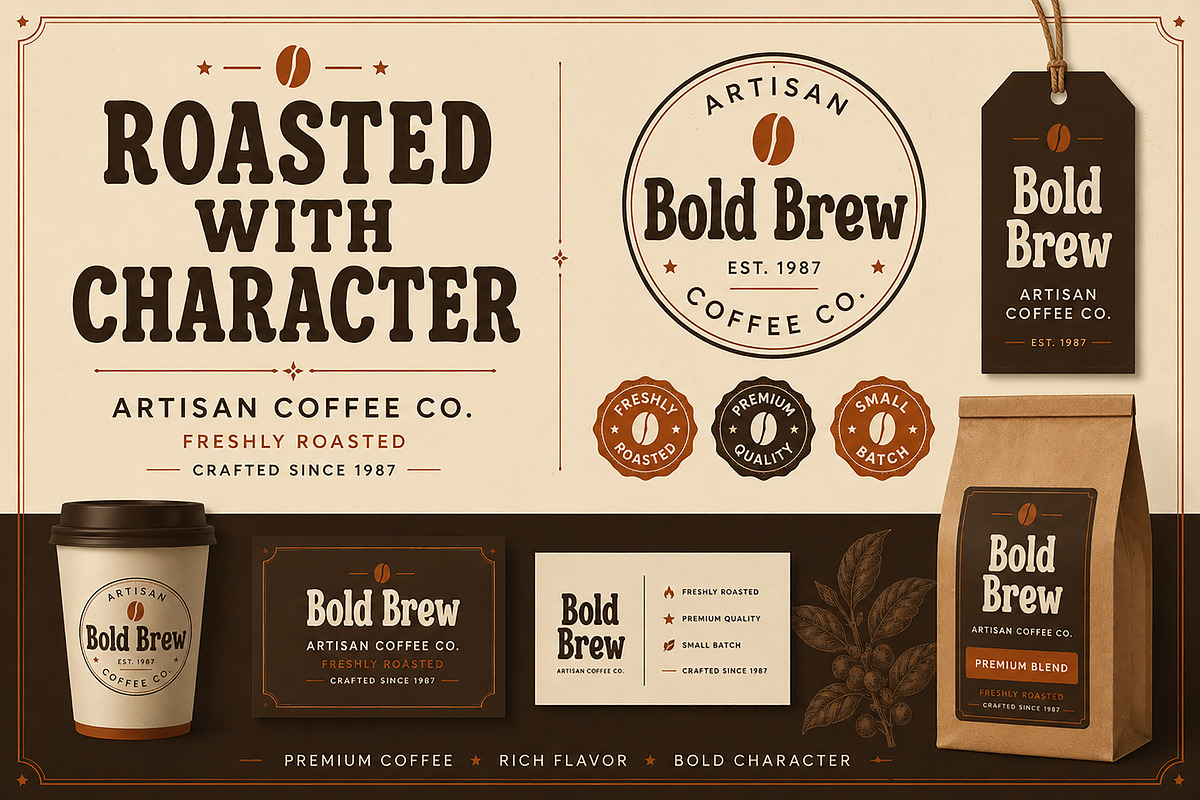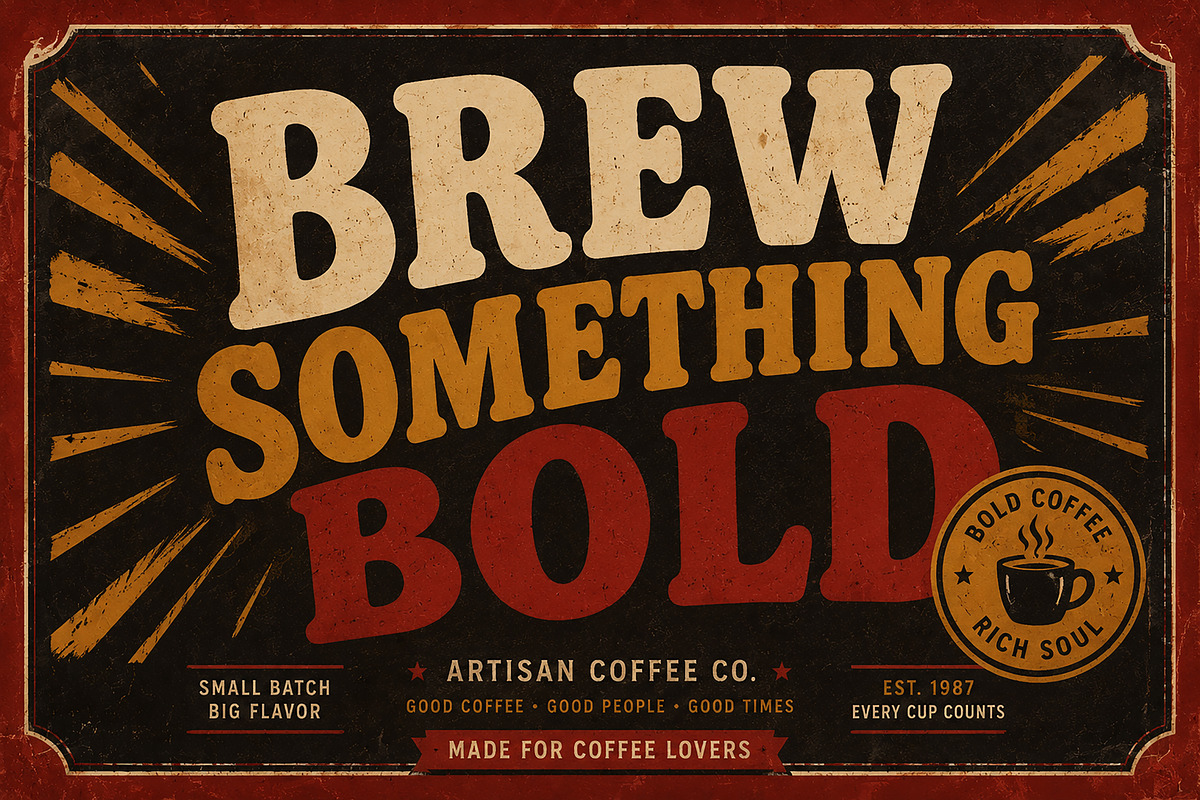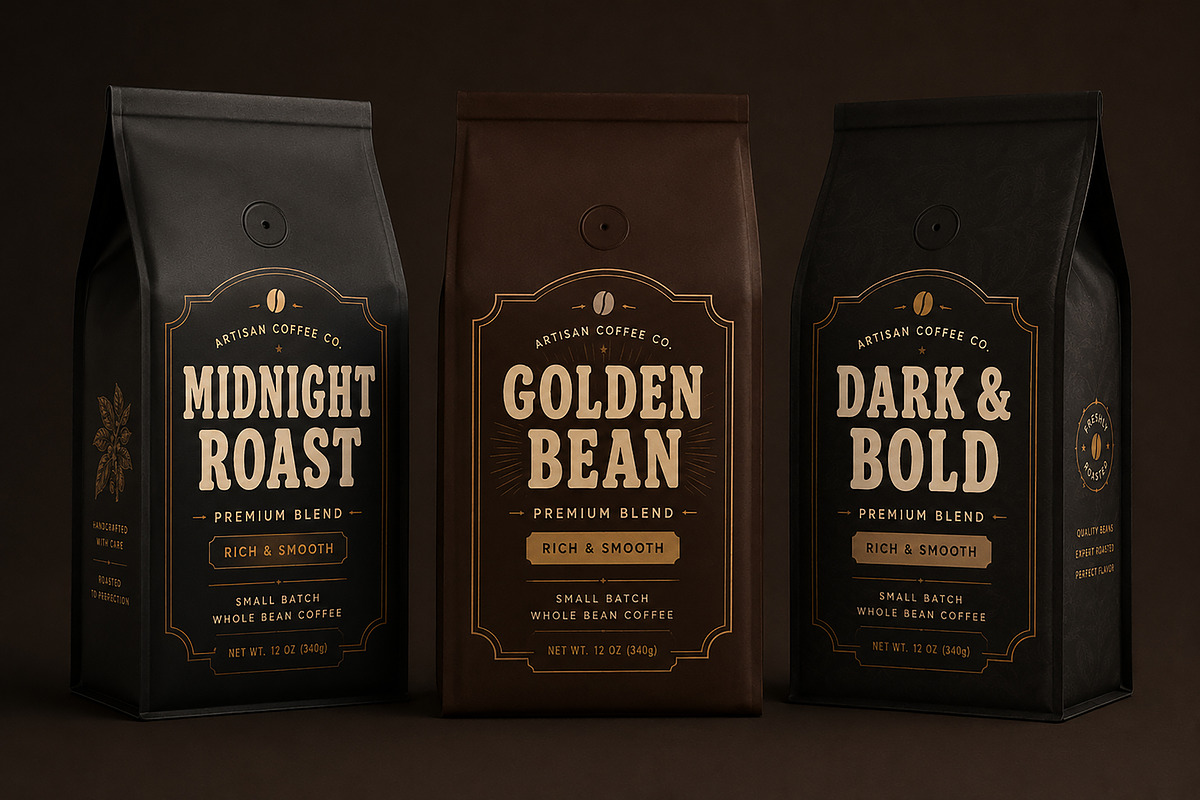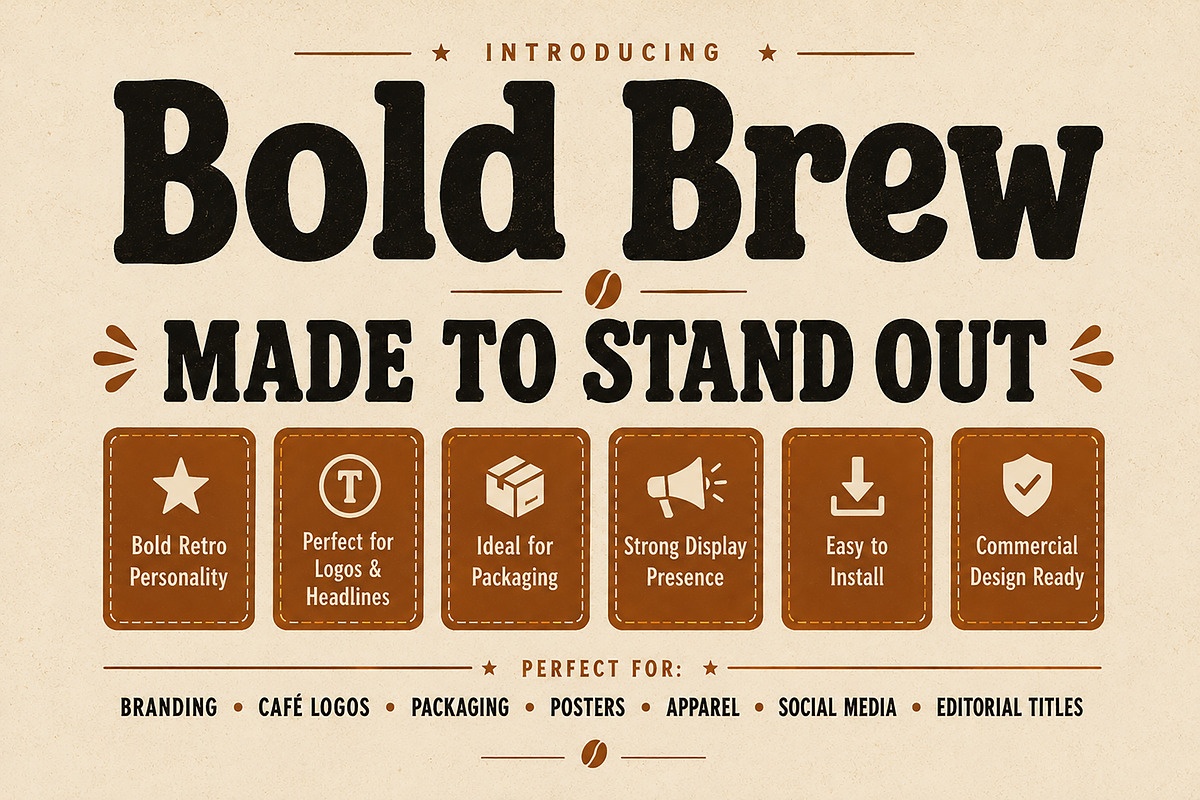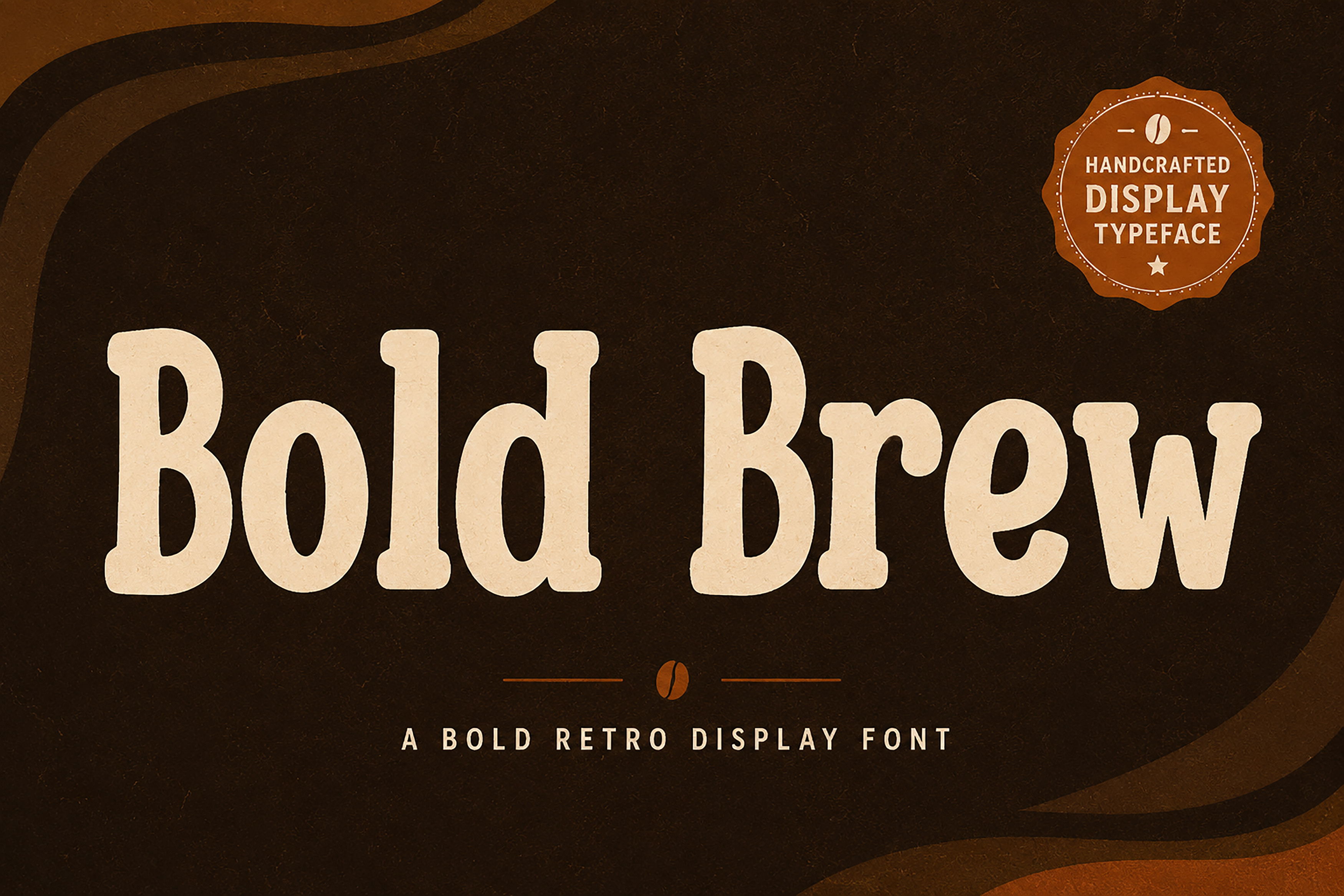
Bold Brew – Bold Retro Display Font
Introducing Bold Brew, a bold retro display font crafted to bring warmth, personality, and timeless vintage charm to your creative projects. Inspired by classic coffee shops, handcrafted branding, old-school signage, and nostalgic packaging, Bold Brew features thick, expressive letterforms that instantly capture attention.
Designed for bold headlines and standout branding, this font delivers a perfect balance between vintage character and modern readability. Whether you're creating logos, packaging, posters, apparel, or social media graphics, Bold Brew gives your designs a strong, memorable presence.
Its handcrafted style makes it an excellent choice for coffee brands, cafés, restaurants, artisan products, food packaging, labels, merchandise, and editorial designs.
If you're looking for a font that combines bold personality with professional quality, Bold Brew is ready to elevate your next project.
Coffee Shop Branding
Café Logos
Food & Beverage Branding
Vintage Posters
Headlines
Editorial Titles
Restaurant Menus
Labels & Stickers
Apparel & T-Shirts
Signage
Advertising
Branding Projects
Bold Retro Display Font
Vintage-Inspired Design
Clean & Highly Readable
Perfect for Logos & Headlines
Strong Display Presence